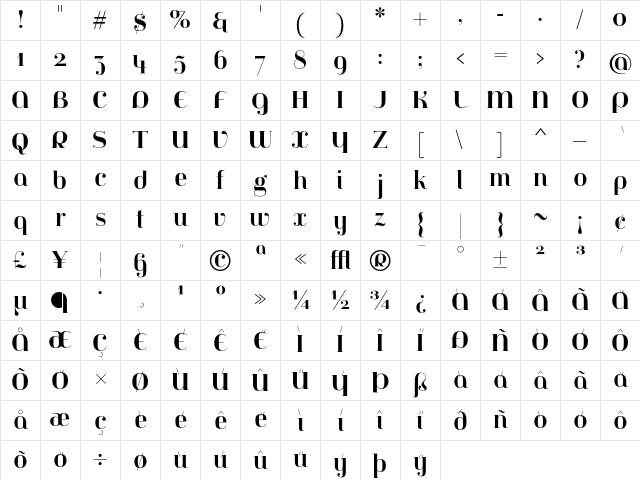
Jeanne Moderno OT Bold Free Font
Jeanne Moderno OT Bold
Foundry: Steve Mehallo
Designer: Steve Mehallo
Design Context for Jeanne Moderno OT
Jeanne Moderno OT is a composed and adaptable typeface that performs quietly and consistently across a wide range of design contexts. Its bold stroke weight gives it real presence on the page.
Who designed the Jeanne Moderno OT Bold font?